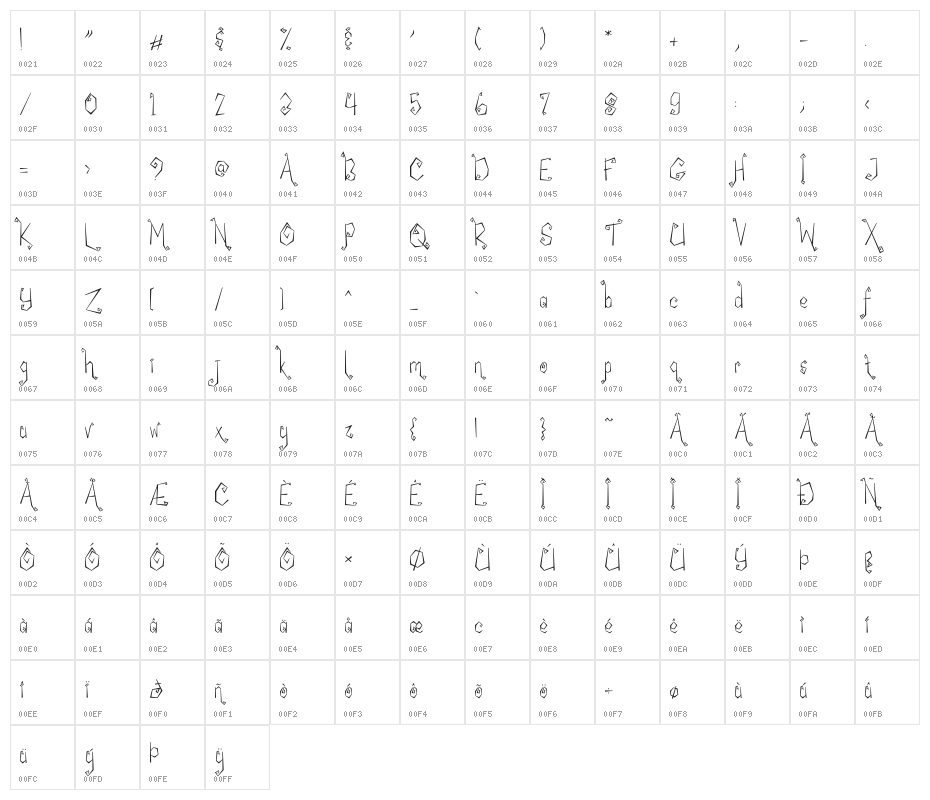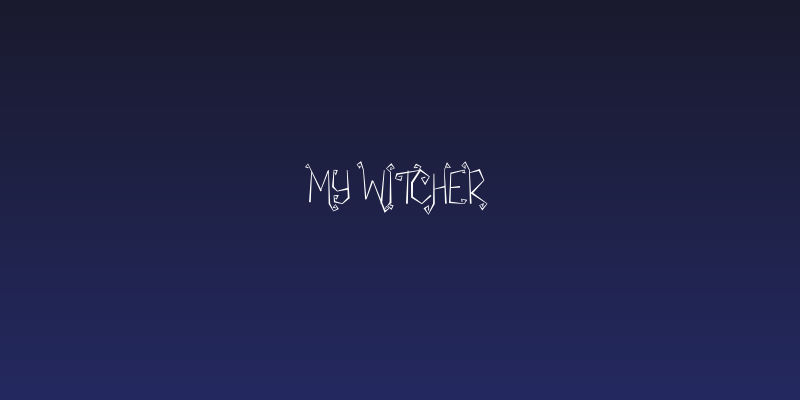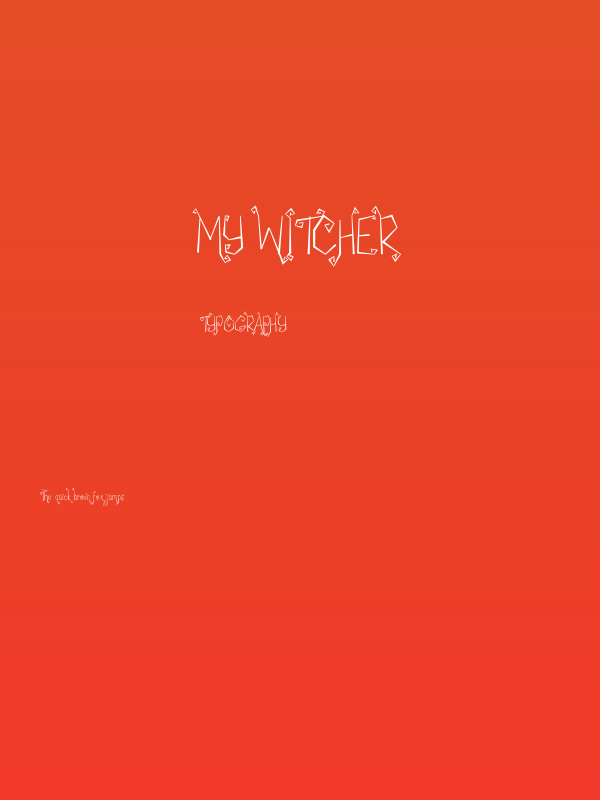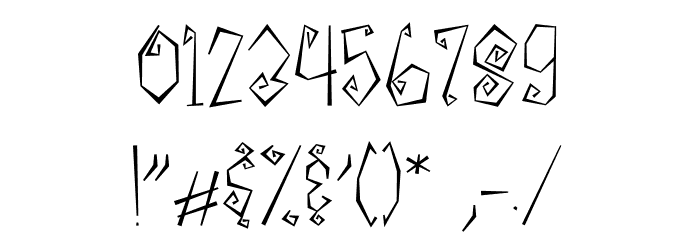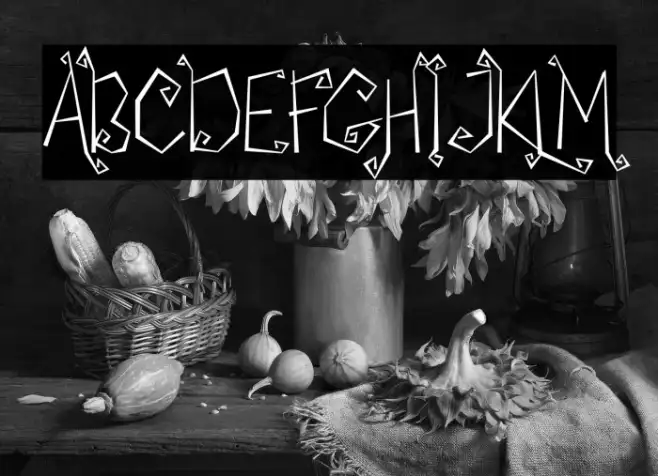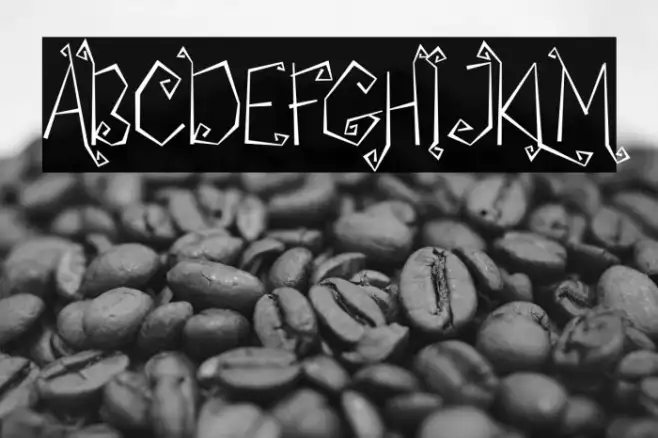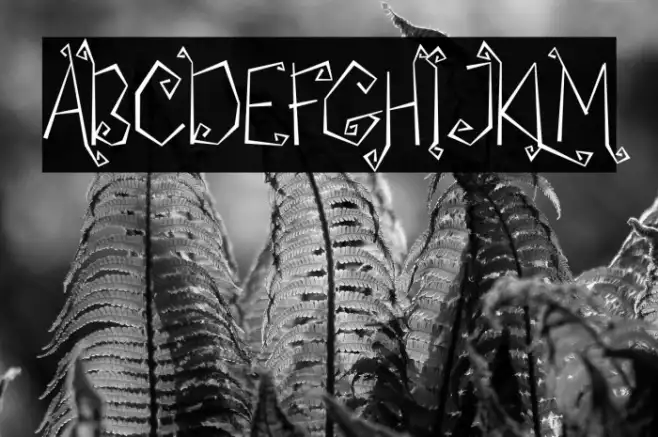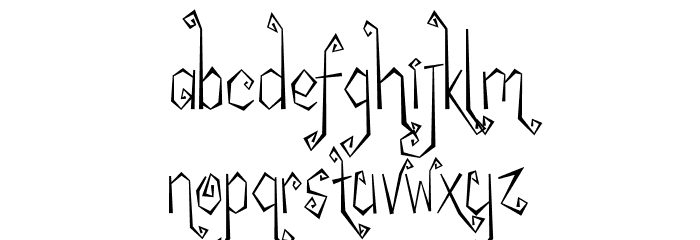
My Witcher Font
My Witcher Description
This font features a unique, whimsical design with angular, pointed elements that give it a mystical and enchanting appearance. The characters are adorned with decorative swirls and spikes, creating a sense of movement and intrigue. The uppercase letters are bold and striking, while the lowercase letters maintain a consistent style with slightly less emphasis. Numbers and special characters follow the same design principles, ensuring a cohesive look across all elements. The font's playful yet edgy aesthetic makes it ideal for projects that require a touch of fantasy or a magical theme.